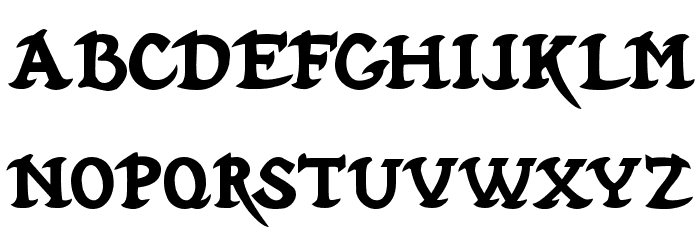
Hubbard Demo Font
This font features a bold and dramatic style with sharp, angular serifs and a distinct medieval flair. The characters are heavily stylized, with exaggerated curves and pointed edges that give it a unique, ornamental appearance. The uppercase letters are particularly striking, with a strong presence that commands attention. The lowercase letters maintain the same decorative elements, ensuring consistency throughout the typeface. This font is ideal for projects that require a touch of historical or fantasy-themed aesthetics, as it evokes a sense of antiquity and grandeur.
A bold, medieval-inspired font with sharp serifs and ornamental design.
- Proposed Projects: Ideal for fantasy book covers, historical event posters, themed invitations, and video game graphics.
- Overall Style: Vintage